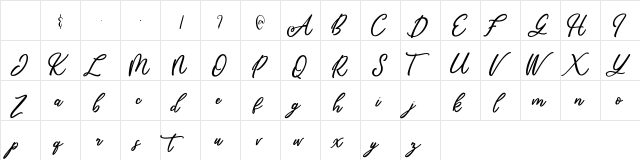
Mandymores is a composed and adaptable typeface that performs quietly and consistently across a wide range of design contexts.
Pro Tip: Use Mandymores in both headline and body roles to test its range before committing to a single application.